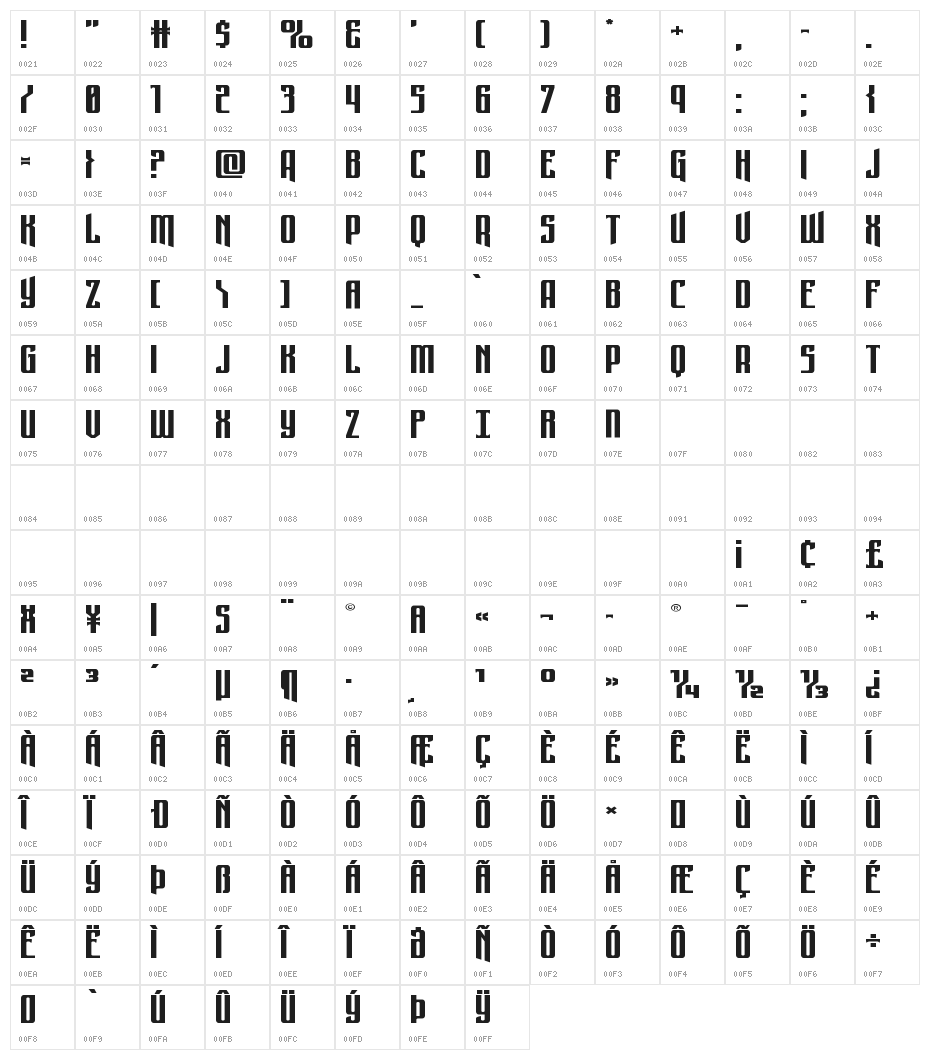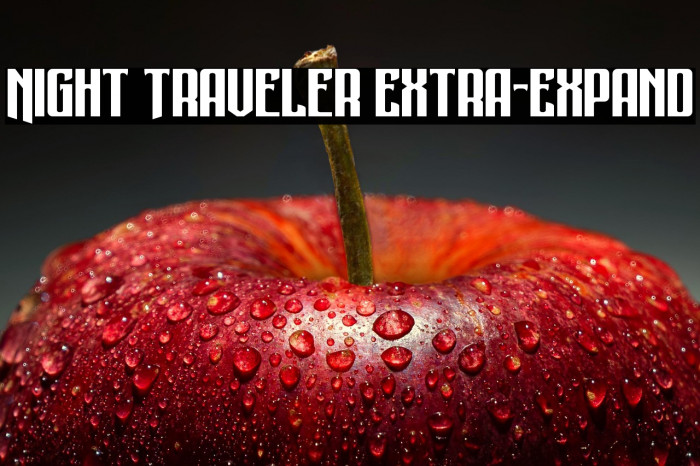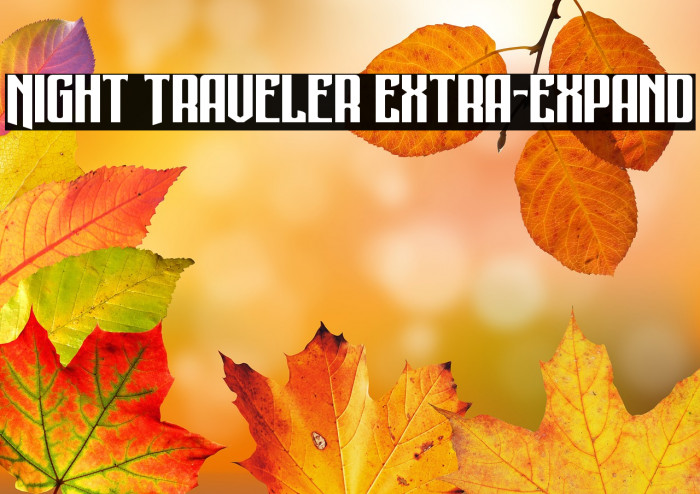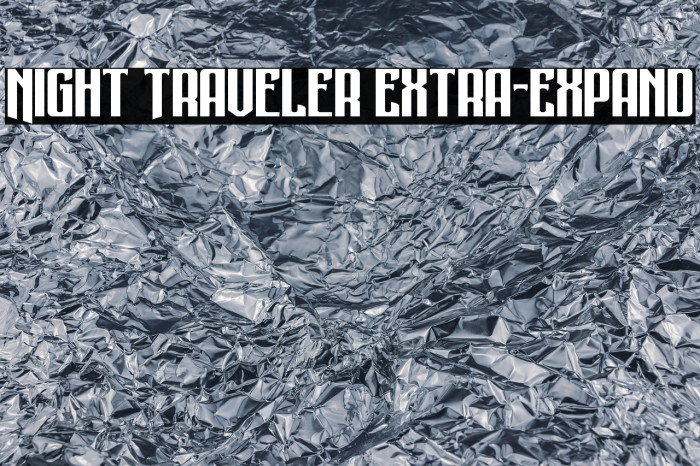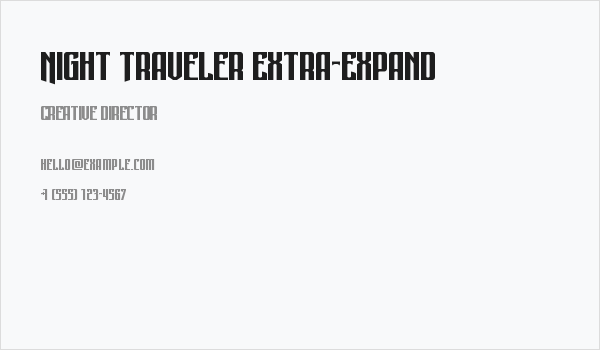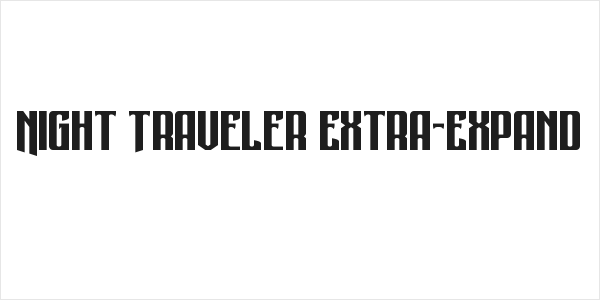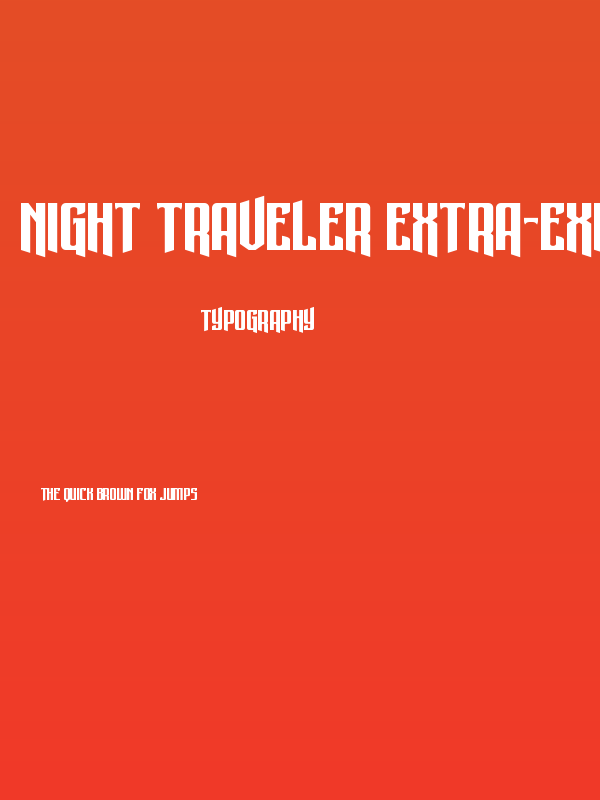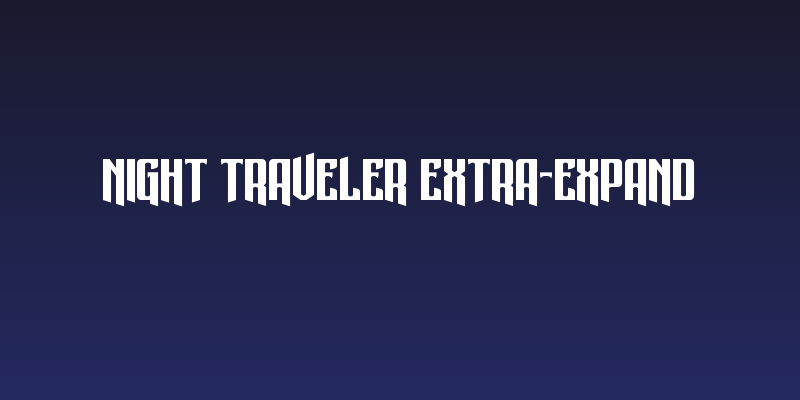
Night Traveler Extra-Expand Font
Night Traveler Extra-Expand Description
This font features a bold and striking design with a strong geometric influence. The characters are tall and narrow, with sharp angles and a consistent stroke width that gives it a powerful presence. The uppercase letters are particularly commanding, while the lowercase letters maintain the same boldness and structure. Numbers and special characters are designed to match the overall aesthetic, ensuring a cohesive look across all text elements. The font's style is reminiscent of vintage poster typography, making it ideal for projects that require a bold statement.
| Proposed Projects | Ideal for posters, headlines, branding, and any design needing a bold, impactful typeface. |